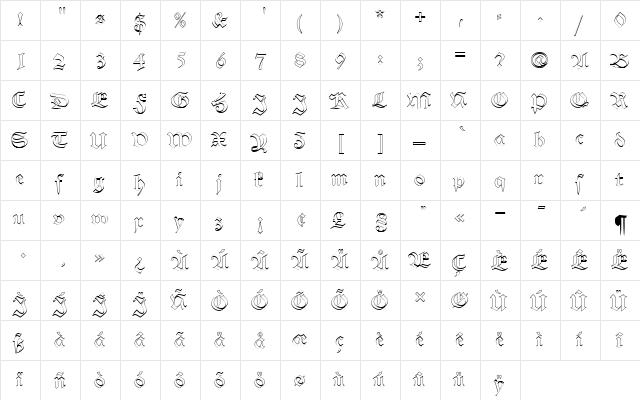
Alte Schwabacher D Ou1 Regular Font Preview
Alte Schwabacher D Ou1 Regular
Alte Schwabacher D Ou1 Regular Font Details
| Foundry | by URW |
Design Context for Alte Schwabacher D Ou1 Typeface
Alte Schwabacher D Ou1 takes a measured approach to typography — its balanced proportions and neutral character make it a reliable workhorse for both digital and print work.